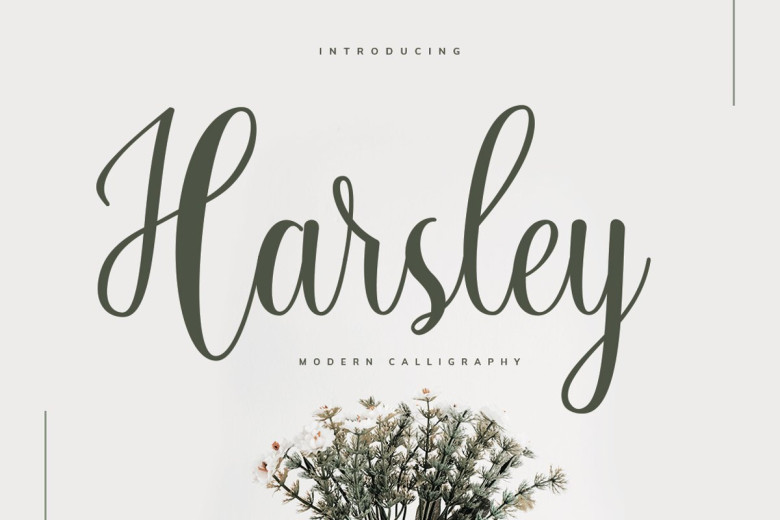
Harsley Calligraphy Script Font
Introducing new product Harsley Calligraphy Script Font. It is elegant, feminine, fashionable and friendly. Trendy and feminine style. Our font will be advocates for purposes such as wedding invitations, thank you cards, quotes, greeting cards, logos, business cards, party, graduation, birthday, gathering, etc.